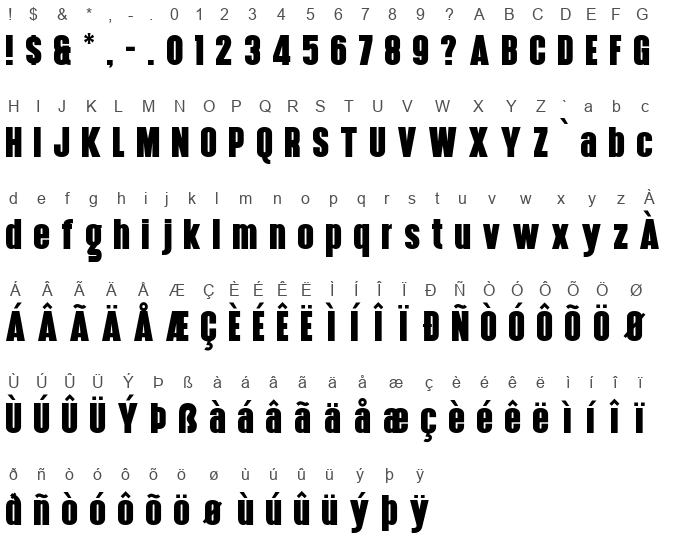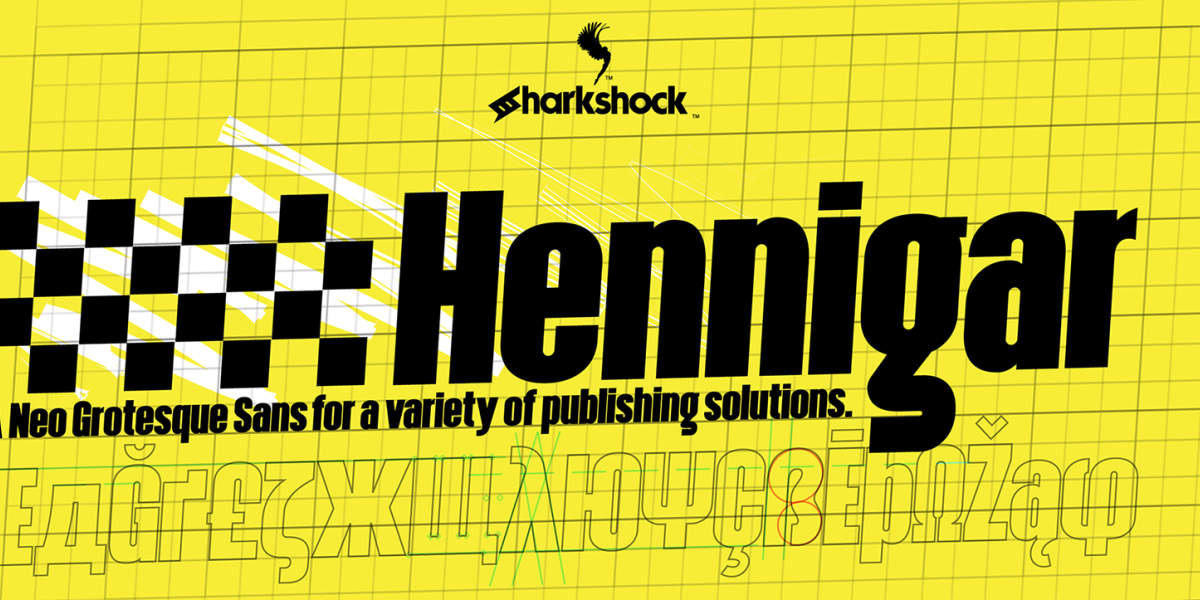
The Hennigar font is a heavy and bold sans-serif typeface, specifically classified as a Neo Grotesque Sans. It is intended for a variety of publishing solutions, including large, impactful displays like posters. The characters are noticeably heavy and have a strong, vertical presence.
Hennigar